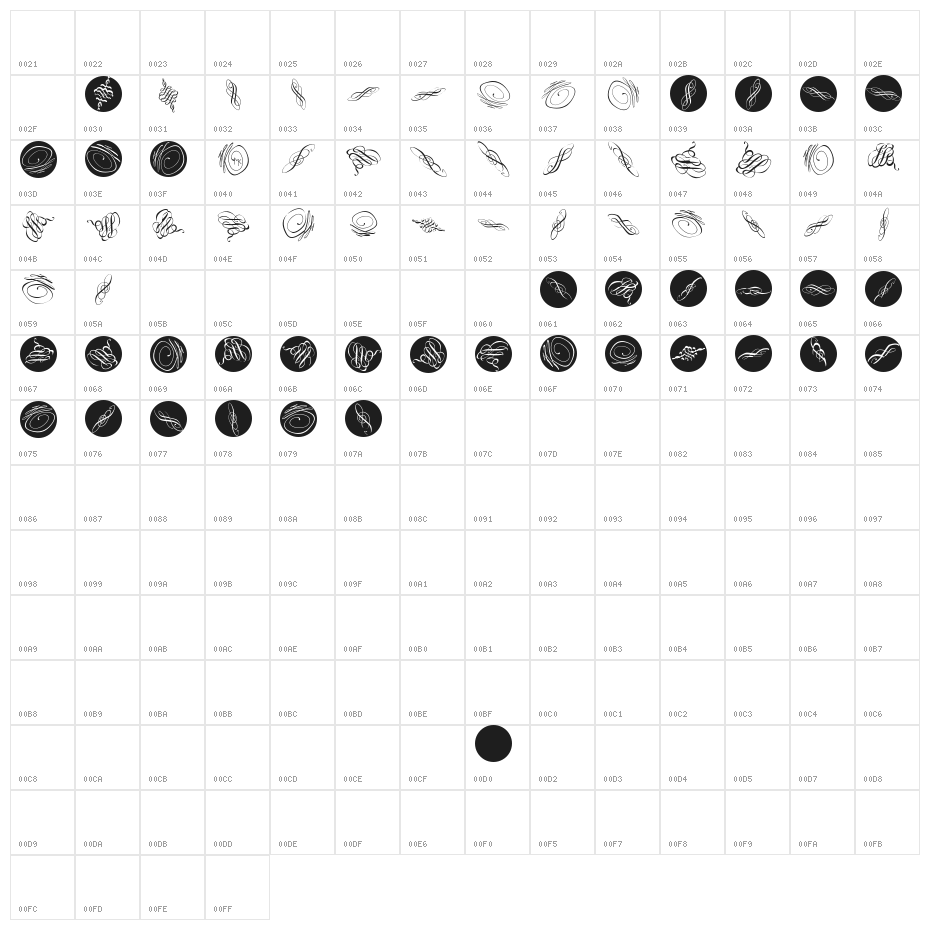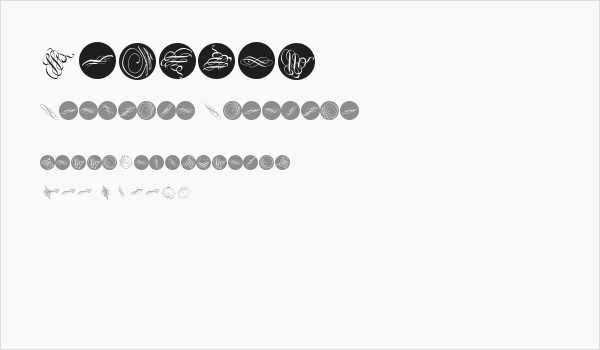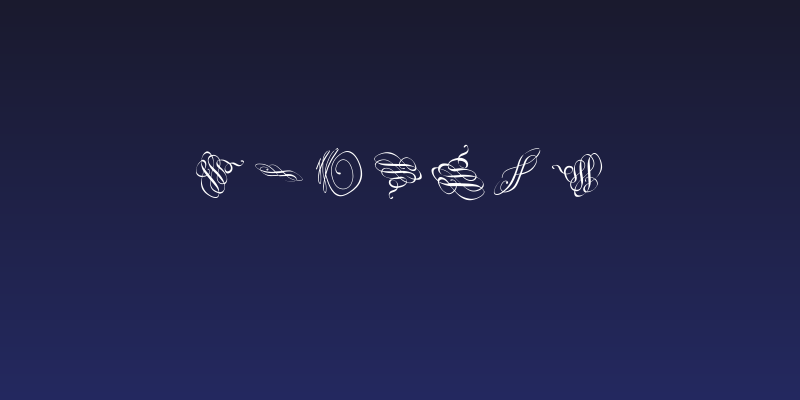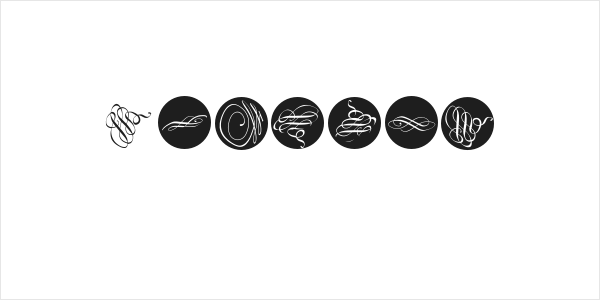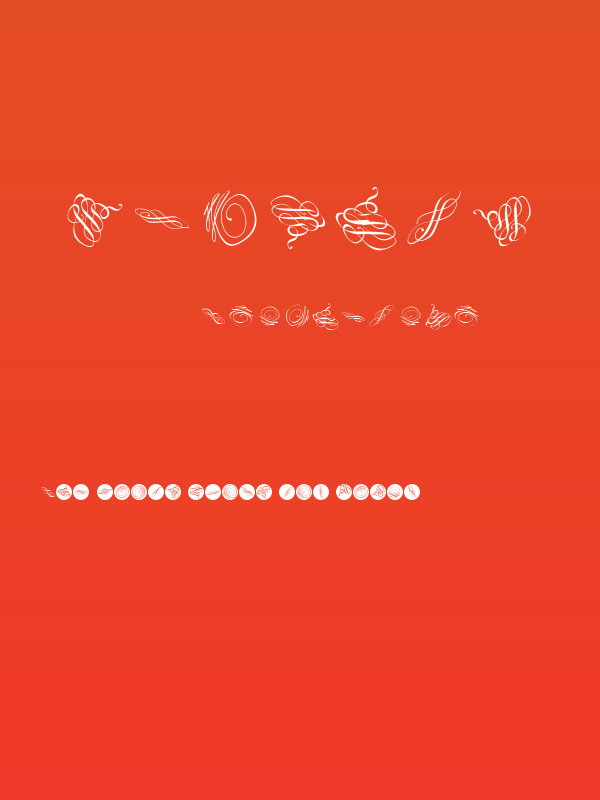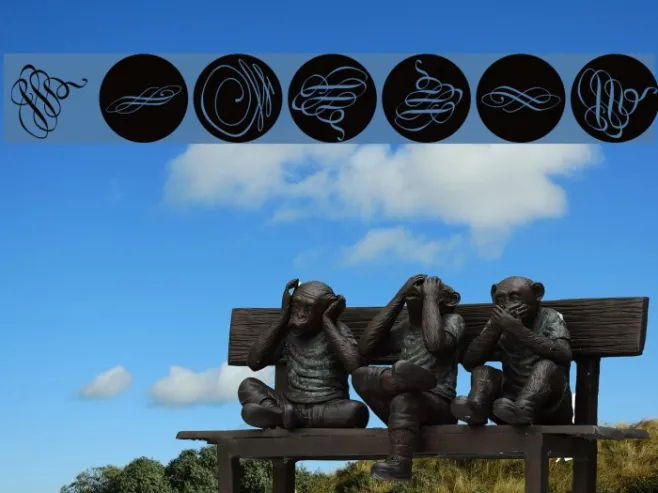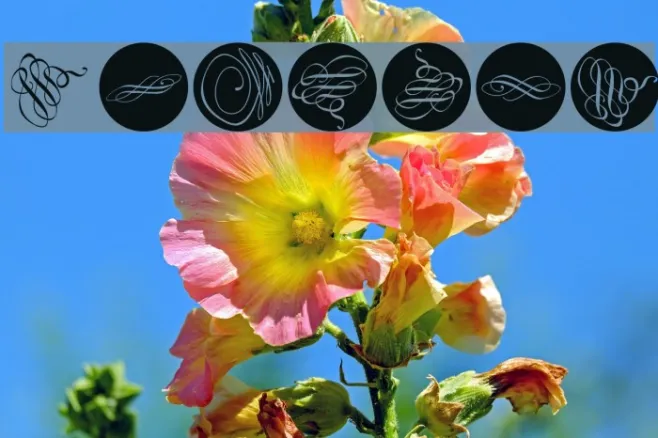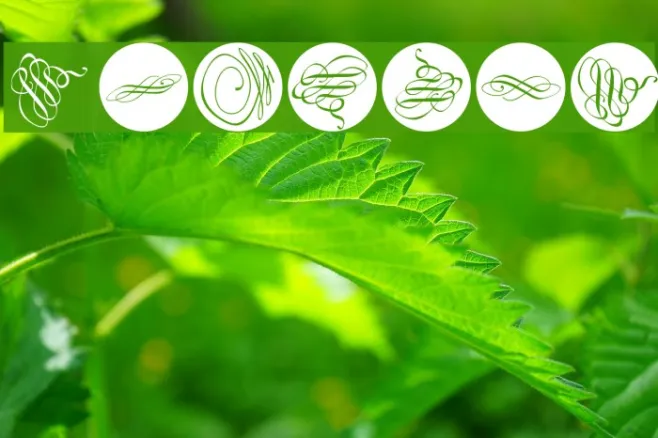
Kringel Font
Kringel Description
This font is a highly decorative and artistic representation of characters, featuring intricate loops and swirls that create a sense of elegance and sophistication. Each letter is uniquely crafted with elaborate curves, making it more of an artistic expression than a traditional typeface. The characters are enclosed in circular backgrounds, enhancing their ornamental appeal. This font is not suitable for body text due to its complexity but serves as a striking visual element for creative projects.
| Use Case | Logos, Decorative headings, Artistic projects |
| Proposed Projects | Ideal for use in artistic projects, invitations, logos, and decorative headings where a touch of elegance and creativity is desired. |